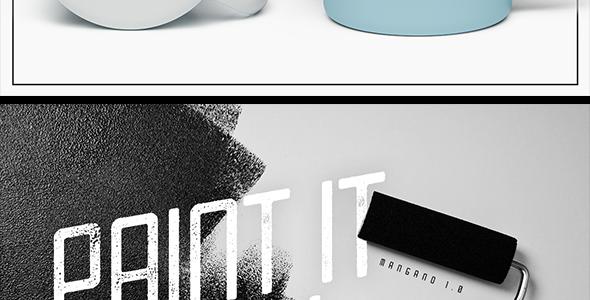
Mangano Font
Mangano is a modern textured display typeface that represents both classic and modern display in one package. It has clean & rough styles, perfect for creating headline display text very easy; perfect for Logos, Advertising, Music Industry, Apparel Design, Labels, Signage, Etc. Files Included: - Mangano Regular (Clean) - Mangano Rough *Fonts are provided in .TTF & .OTF formats Features: - Uppercase/Lowercase - Numerals & Punctuations - Accents (Multilingual characters) - Alternate glyphs Thanks for watching and I hope you have fun with Mangano!